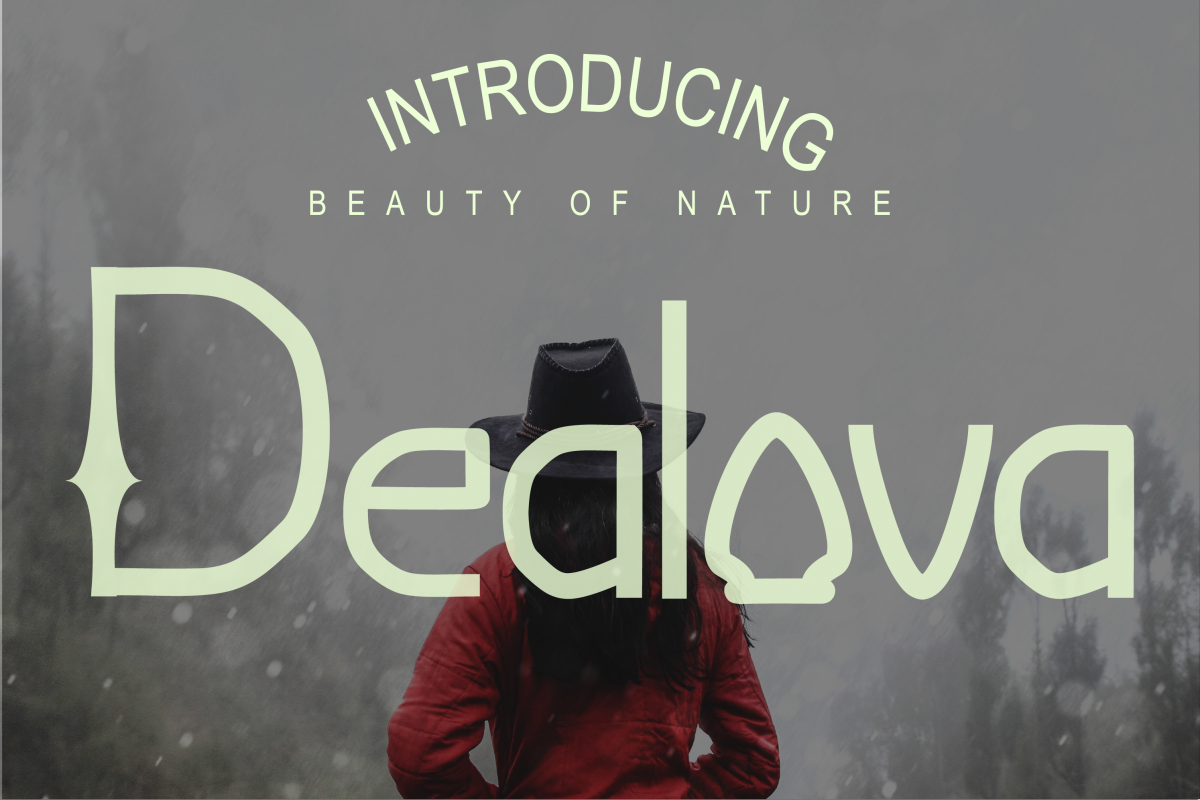
Dealova Regular Font
Dealova fonts have an elegant elegance that is interesting to look at, making the design that you make become even more impressed for those who see it.This font is very suitable for the purposes of logos, brochures, magazines, book covers, and other design projects.